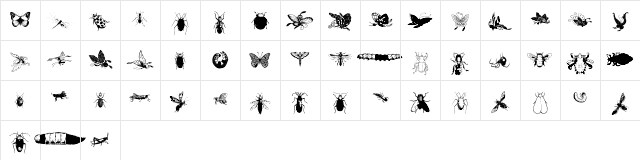
Insects1 Regular Free Font
Insects1 Regular
Design Context for Insects1
Insects1 is a composed and adaptable typeface that performs quietly and consistently across a wide range of design contexts.